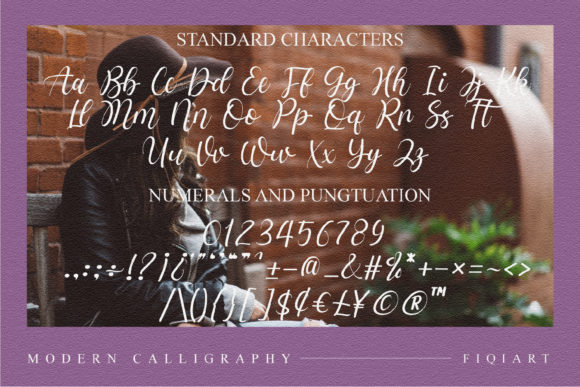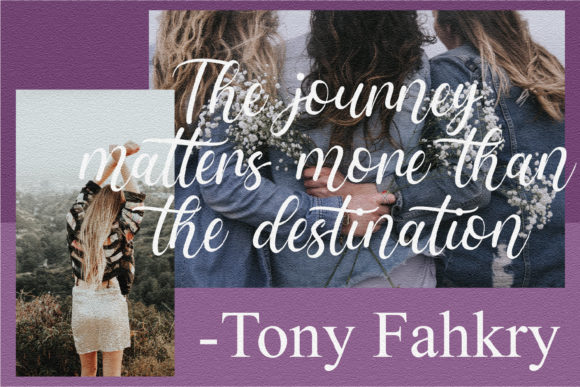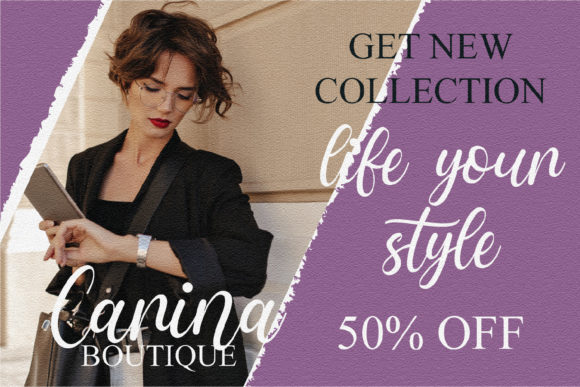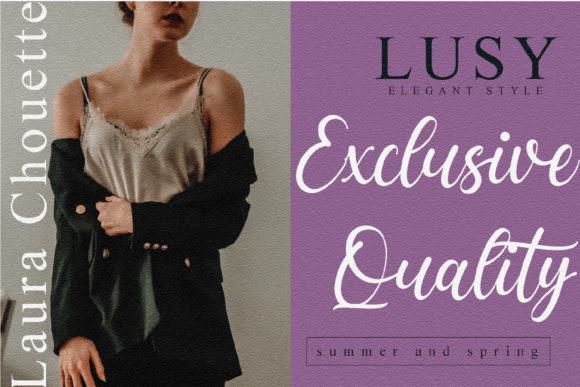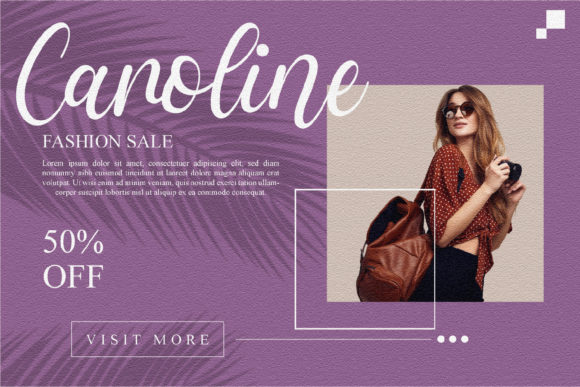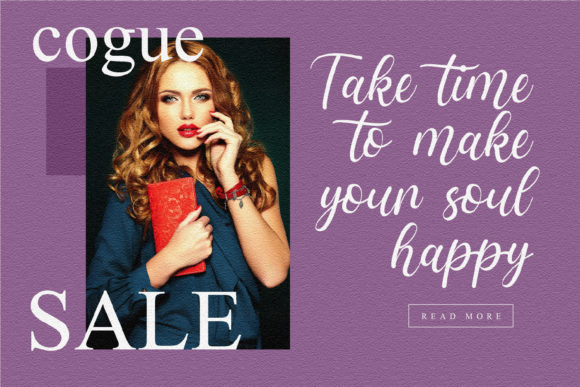
Amanda Font: Elevate Your Designs with Elegance and Whimsy
In the world of typography, few fonts capture the essence of elegance and delicacy as perfectly as Amanda Font. This beautiful, handwritten font is a treasure trove of creative possibilities, boasting sweet and delicate swashes that add a touch of sophistication to any design project. Whether you’re a seasoned designer or a crafty DIY enthusiast, Amanda Font is sure to become your go-to choice for a wide range of applications, from letterheads and titles to stationery and more.
The Charm of Amanda Font
Amanda Font is an original, handmade typeface that exudes a sense of refinement and luxury. Its elegant, cursive strokes are carefully crafted to create a sense of fluidity and movement, making it perfect for designs that require a touch of whimsy and personality. The font’s delicate swashes add a decorative flourish to words and phrases, elevating them from simple text to beautiful, eye-catching statements.
Design Possibilities with Amanda Font
The versatility of Amanda Font is one of its most appealing features. This stunning font can be used in a wide range of design projects, including:
- Letterheads and stationery: Add a touch of elegance to your business correspondence with Amanda Font’s sophisticated, cursive script.
- Titles and headings: Use Amanda Font to create eye-catching titles and headings for your blog posts, articles, or social media graphics.
- Wedding and event invitations: Make your special day even more memorable with beautifully designed invitations featuring Amanda Font.
- Branding and packaging: Use Amanda Font to create a cohesive brand identity that exudes luxury and sophistication.
Why Choose Amanda Font?
With so many fonts available, why choose Amanda Font for your design projects? Here are just a few reasons:
- Unique and original: Amanda Font is a one-of-a-kind typeface that will set your designs apart from the crowd.
- Elegant and sophisticated: This font’s delicate swashes and cursive strokes add a touch of luxury to any design.
- Versatile: Use Amanda Font in a wide range of design projects, from digital graphics to print materials.
Tips for Using Amanda Font
To get the most out of Amanda Font, here are a few tips to keep in mind:
- Use it sparingly: Amanda Font is a statement font, so use it sparingly to avoid overwhelming your design.
- Pair it with contrasting fonts: Combine Amanda Font with a simpler font to create visual interest and contrast.
- Experiment with colors: Amanda Font looks beautiful in a range of colors, from soft pastels to rich jewel tones.
Amanda Font is a stunning, elegant font that is sure to elevate your designs to new heights. With its delicate swashes and cursive strokes, this beautiful typeface is perfect for a wide range of crafty ideas, from letterheads and titles to stationery and more. Whether you’re a designer, crafter, or DIY enthusiast, Amanda Font is a must-have addition to your typography toolkit.